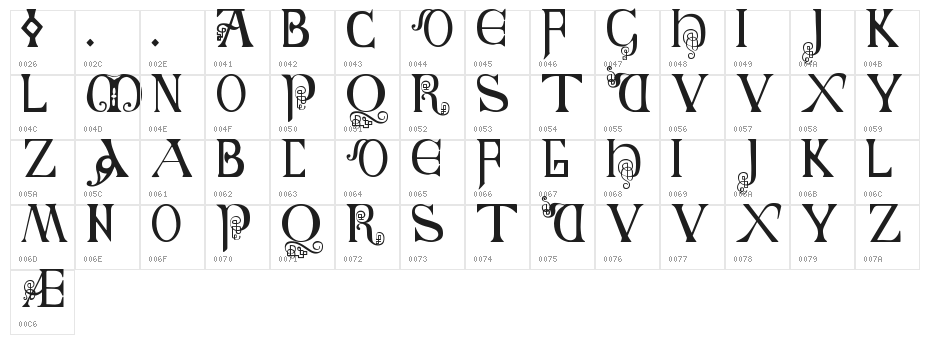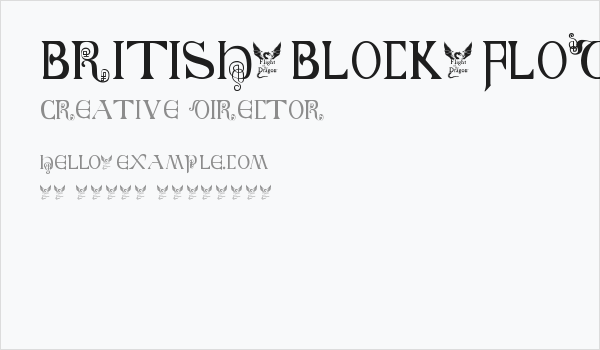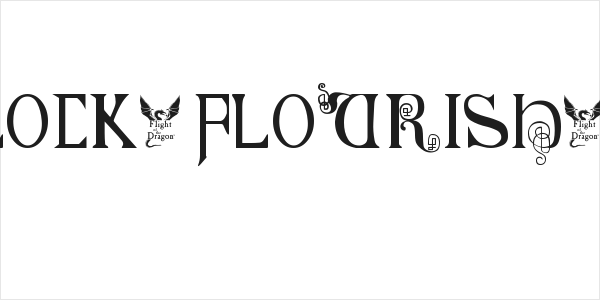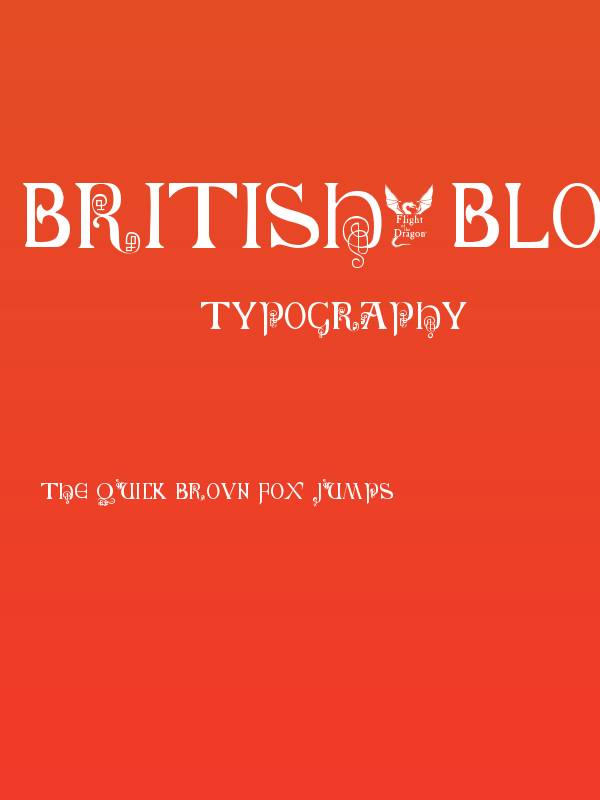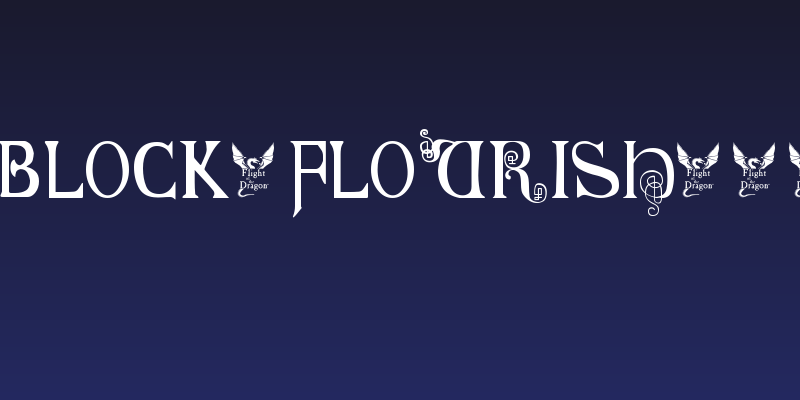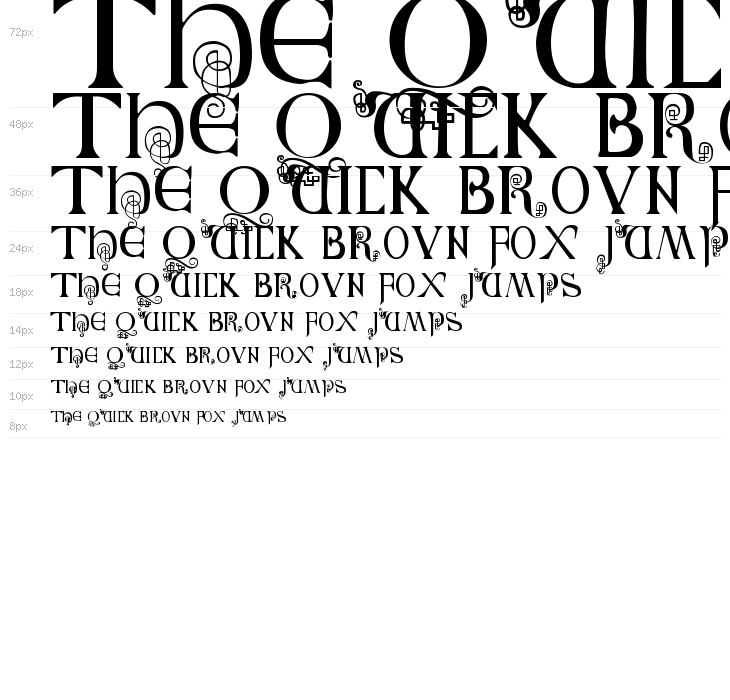
British-Block-Flourish--10th-c- Font
British-Block-Flourish--10th-c- Description
This font features a distinctive and ornate style, characterized by its elaborate flourishes and decorative elements. The uppercase letters are bold and striking, with intricate curls and embellishments that give it a regal and historical feel. The lowercase letters maintain a similar decorative style, ensuring consistency throughout the typeface. The numbers and special characters are equally ornate, making this font ideal for projects that require a touch of elegance and sophistication. Its unique design is reminiscent of medieval script, making it suitable for themed events, historical documents, or fantasy-related projects.
Overall StyleVintage
Proposed ProjectsPerfect for invitations, event programs, book covers, or any project requiring a historical or fantasy aesthetic.